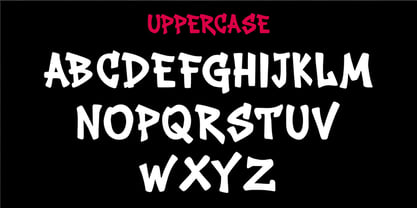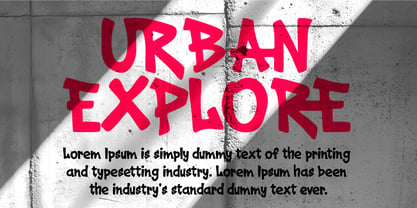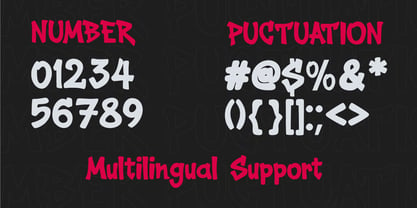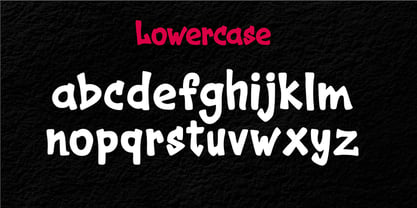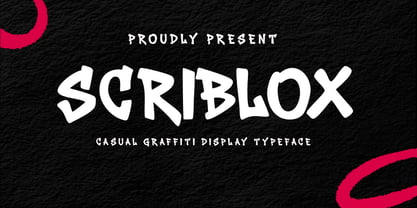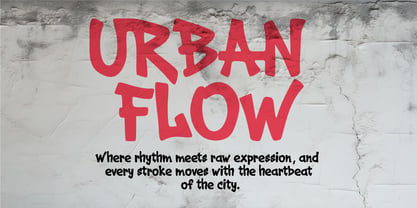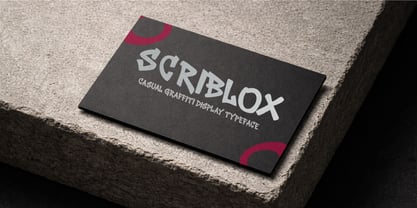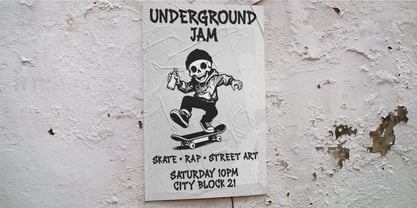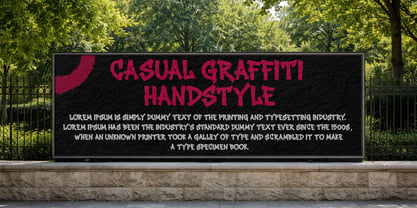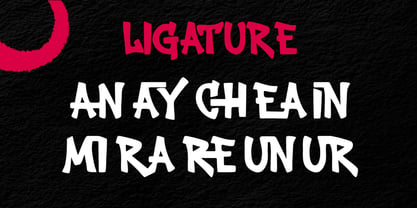
Scriblox
Die Schriftfamilie Scriblox wurde von Wirandi Limansyah Zendrato entworfen und von Elevra veröffentlicht. Scriblox enthält 1 Stile. Mehr über diese Familie
Scriblox is a casual graffiti display typeface inspired by street art culture and freehand urban lettering. With its hand-drawn strokes, playful angles, and expressive shapes, this font delivers a bold yet relaxed personality. Designed to capture the raw and spontaneous energy of graffiti, Scriblox feels natural, creative, and full of movement. The irregular letterforms and organic flow make it perfect for street-style branding, posters, album covers, merchandise, social media graphics, and bold headlines. Its casual character gives your designs an authentic urban vibe while maintaining strong readability in large sizes. Whether you're creating edgy streetwear branding or fun creative projects, Scriblox adds a fresh and dynamic look. If you're looking for a graffiti-inspired display font with attitude and playful expression, Scriblox is ready to bring your ideas to life.